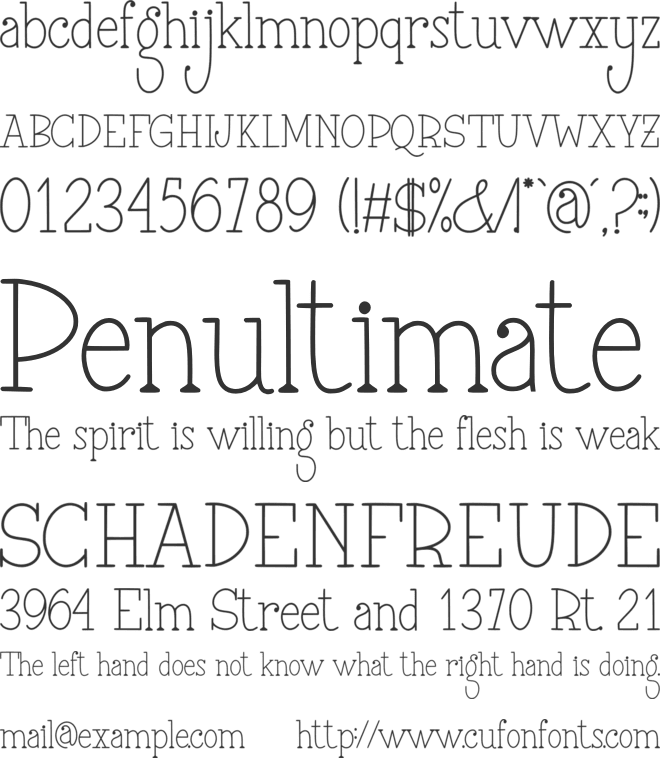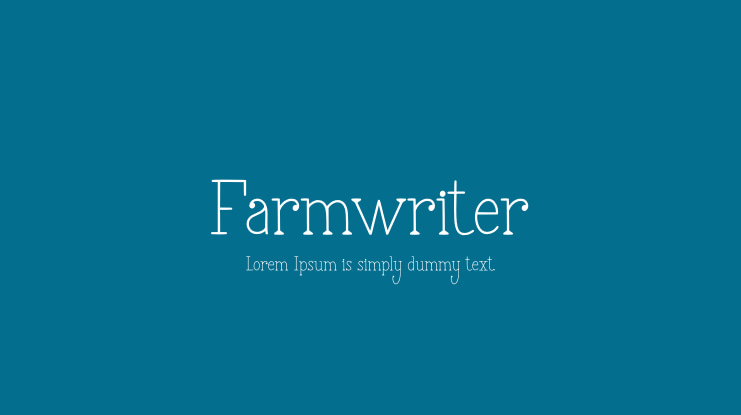
Farmwriter Font
Proudly Present, Farmwriter
Farmwriter is a Vintage Typewriters Font
Farmwriter is perfect for product packaging, branding project, megazine, social media, wedding, or just used to express words above the background.